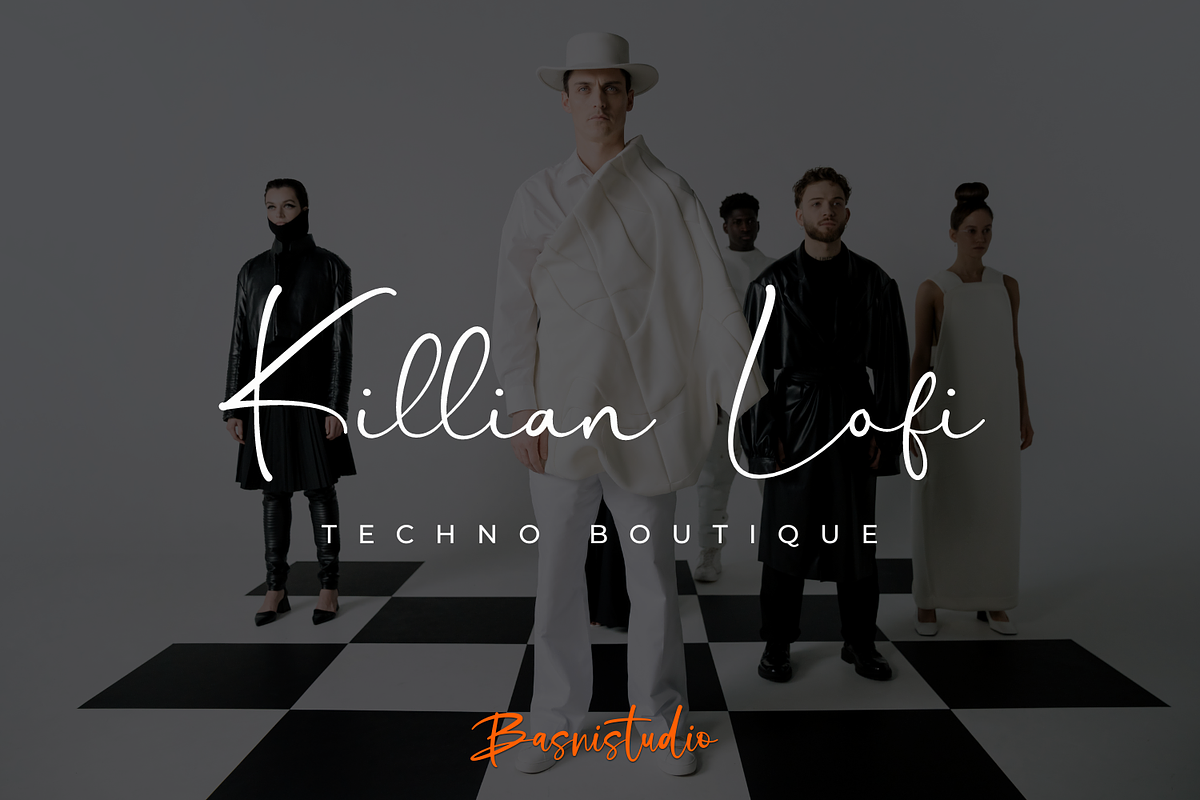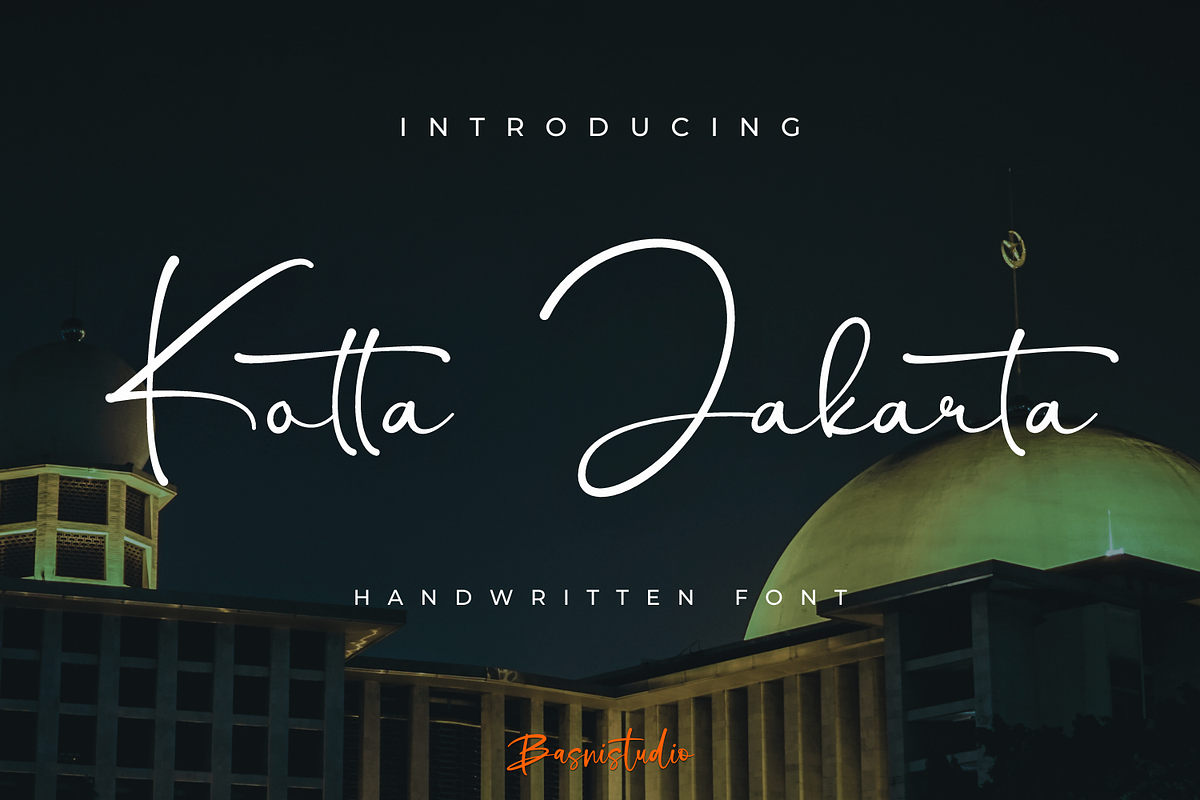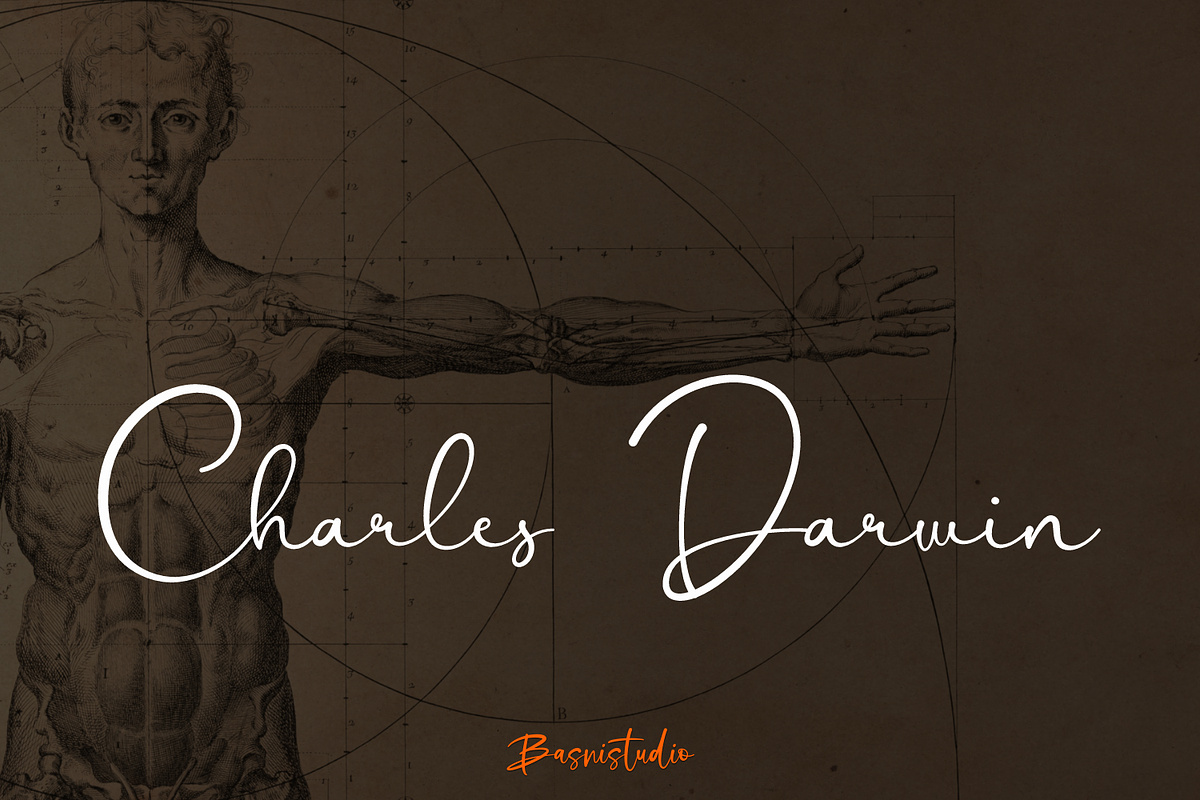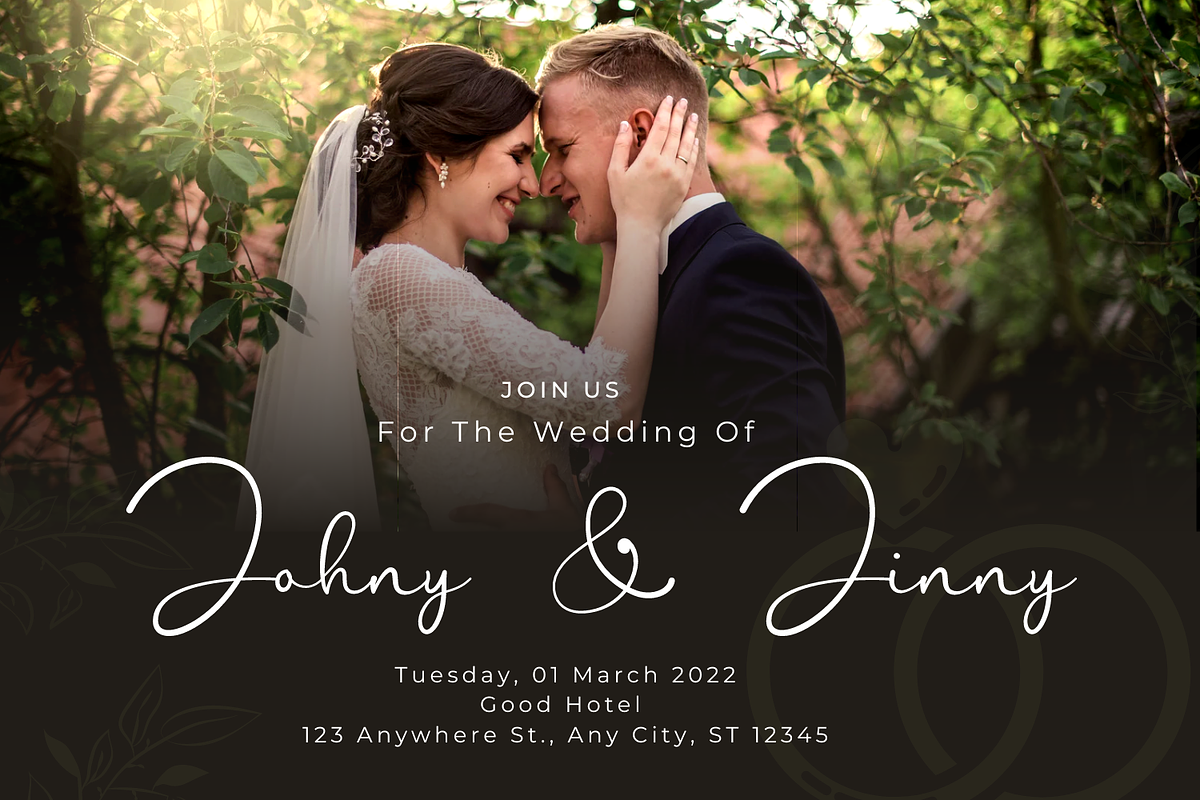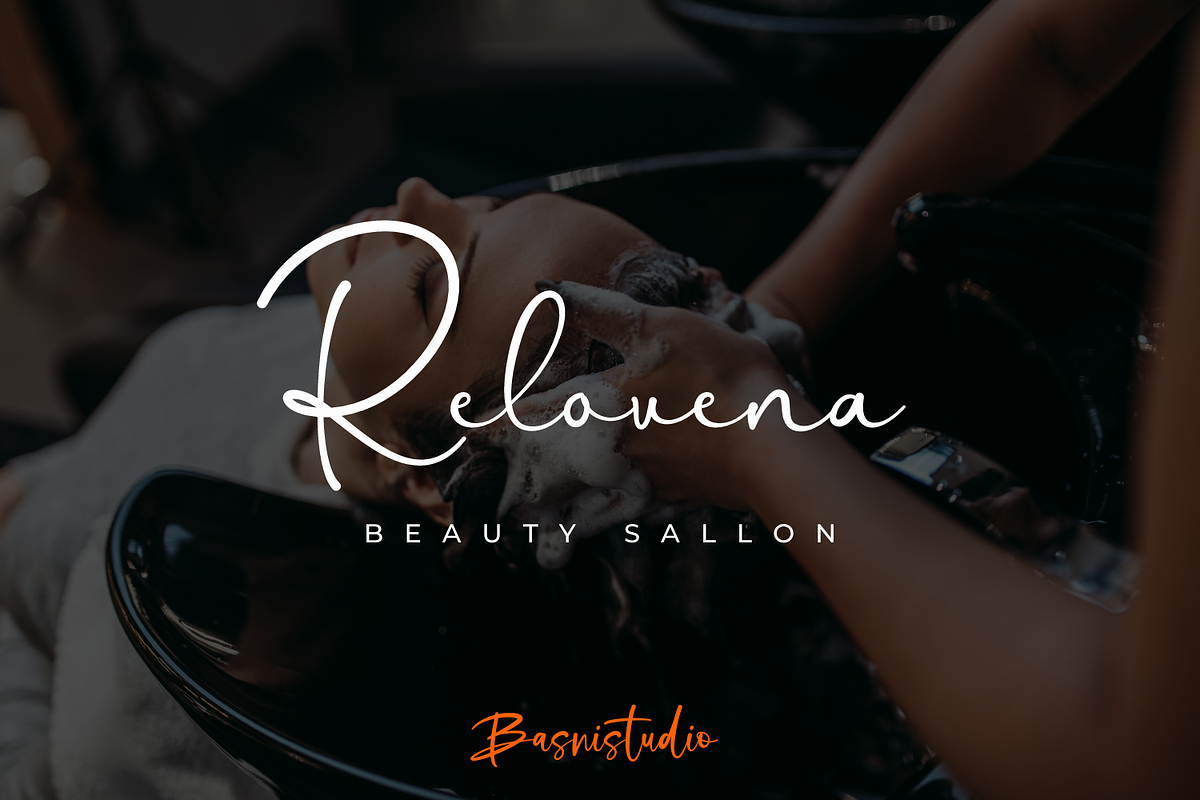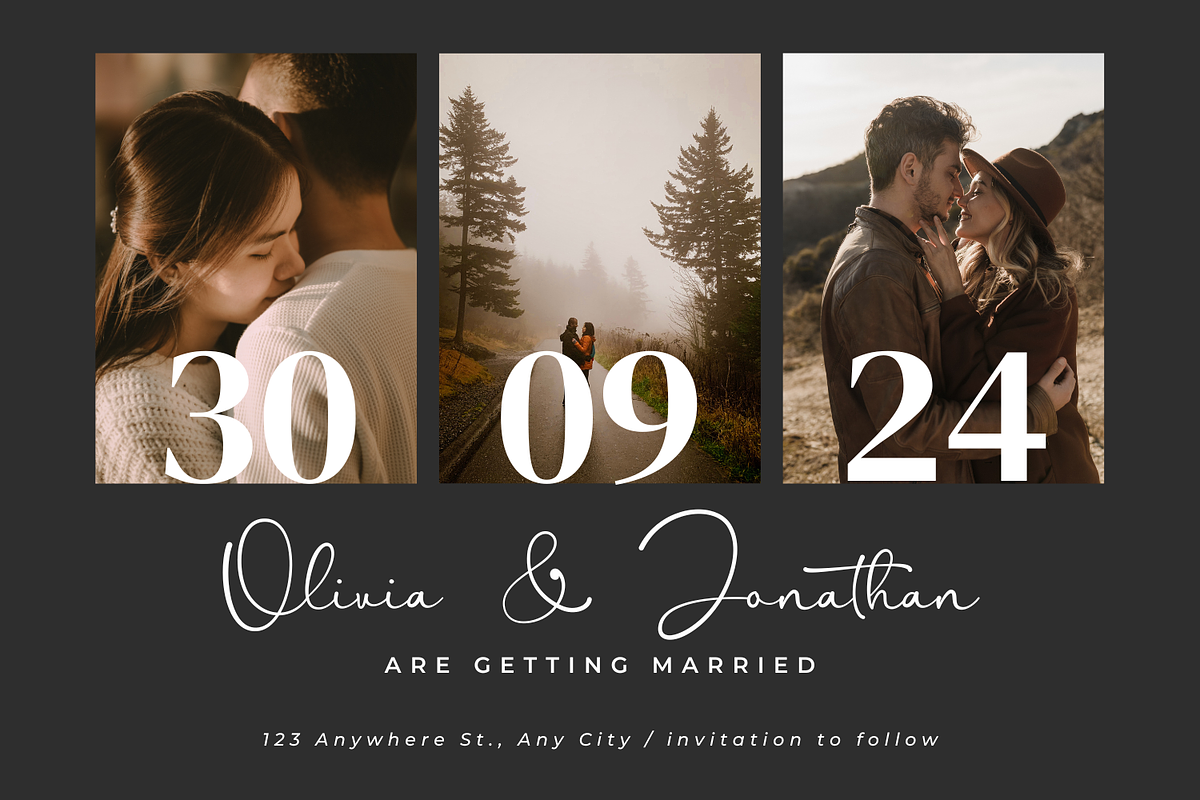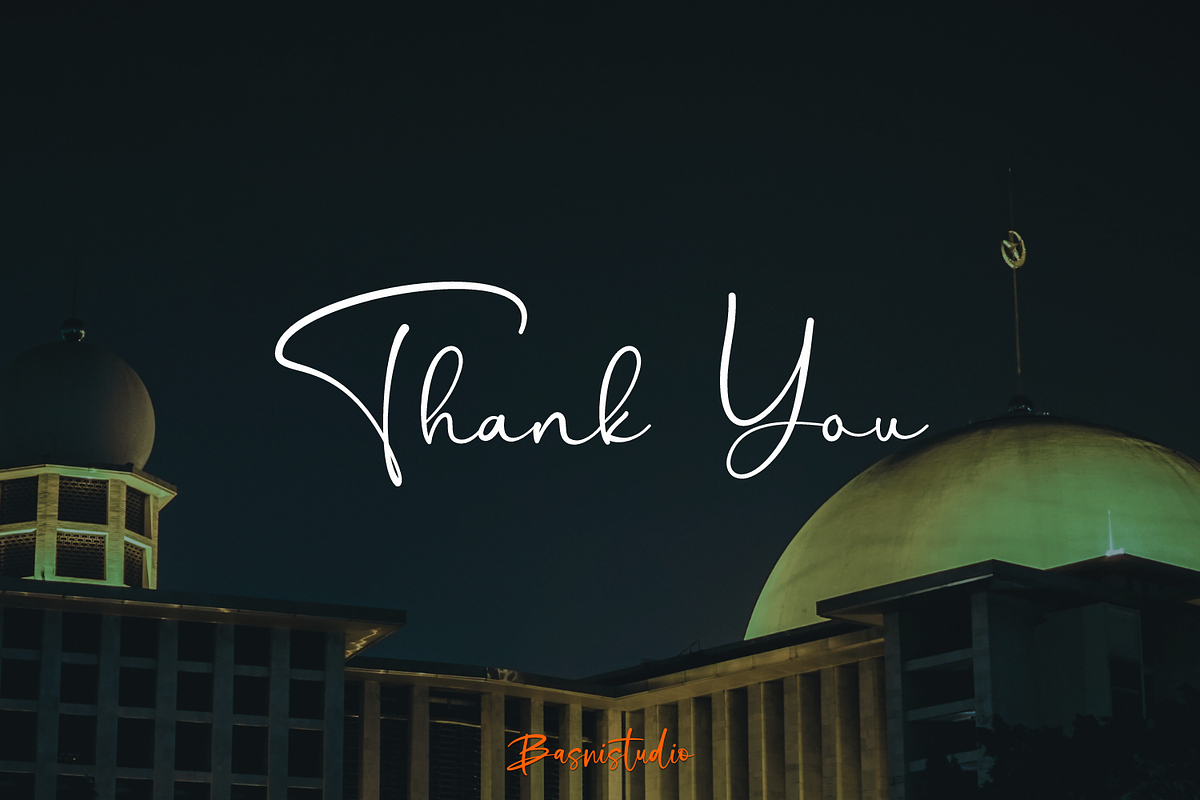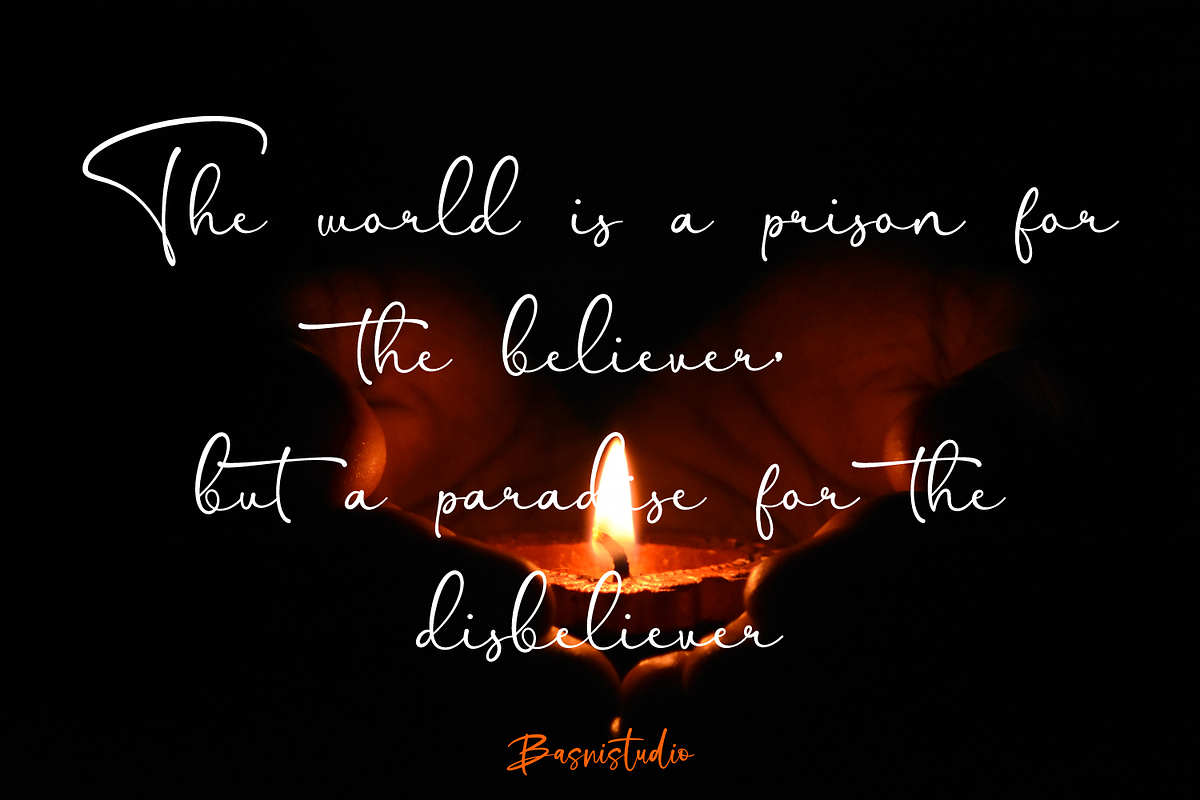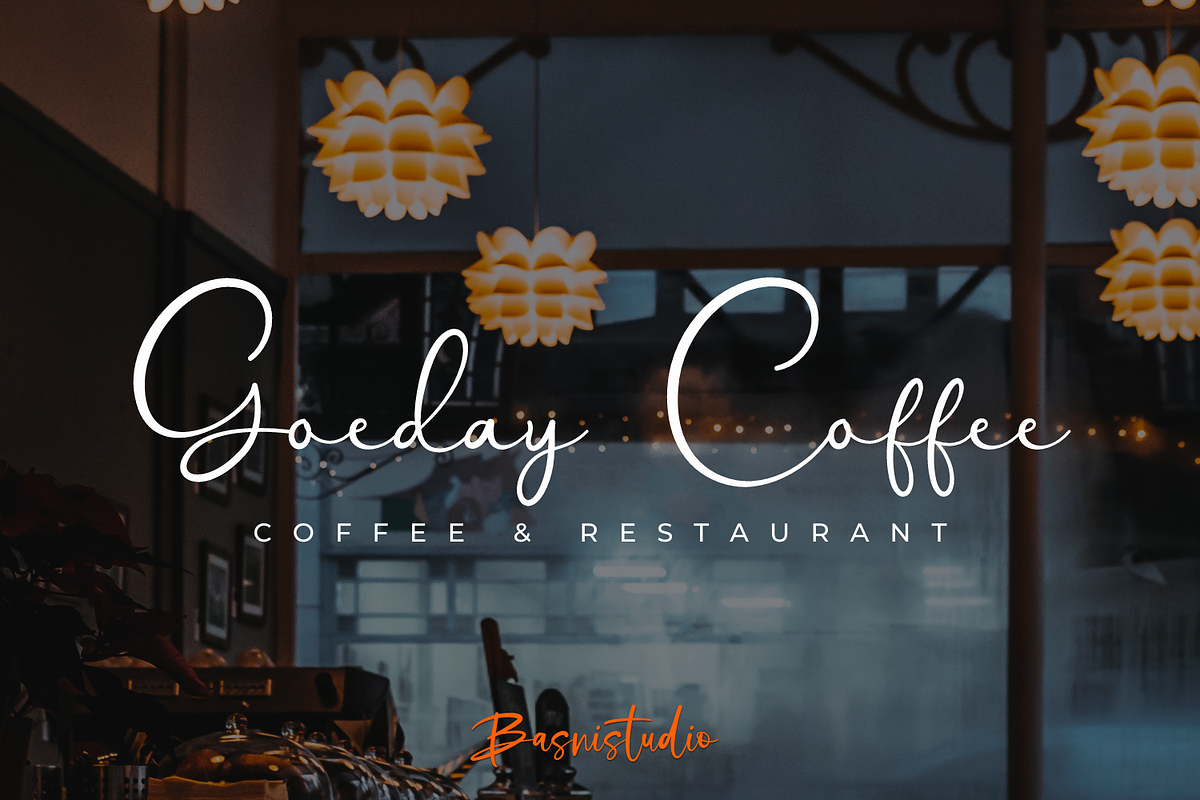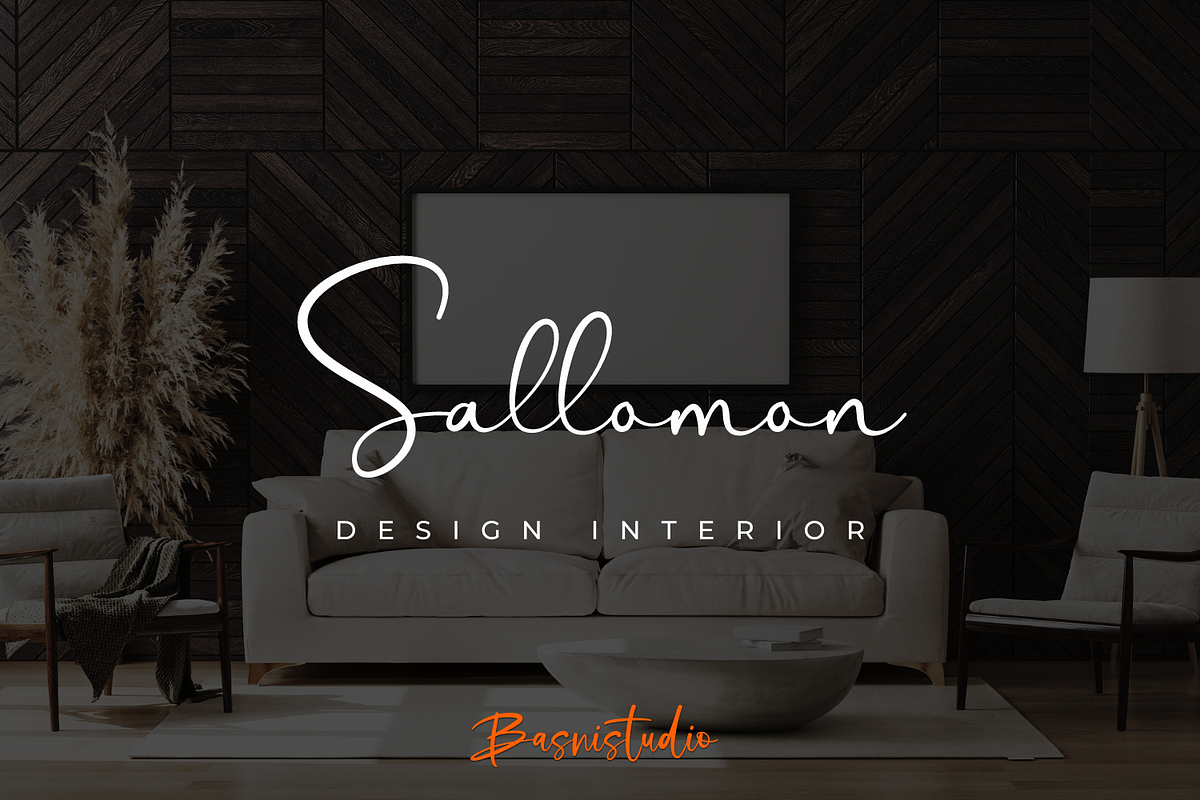
Kotta Jakarta Handwritten Font
Introducing Kotta Jakarta Handwritten Font
Kotta Jakarta Handwritten Font , made with Naturaly & precision, perfect for branding, websites, and editorial designs. Includes all Characters letters, multilingual support, punctuation, binding. everything can be easily accessed using software that supports OpenType. What’s include: